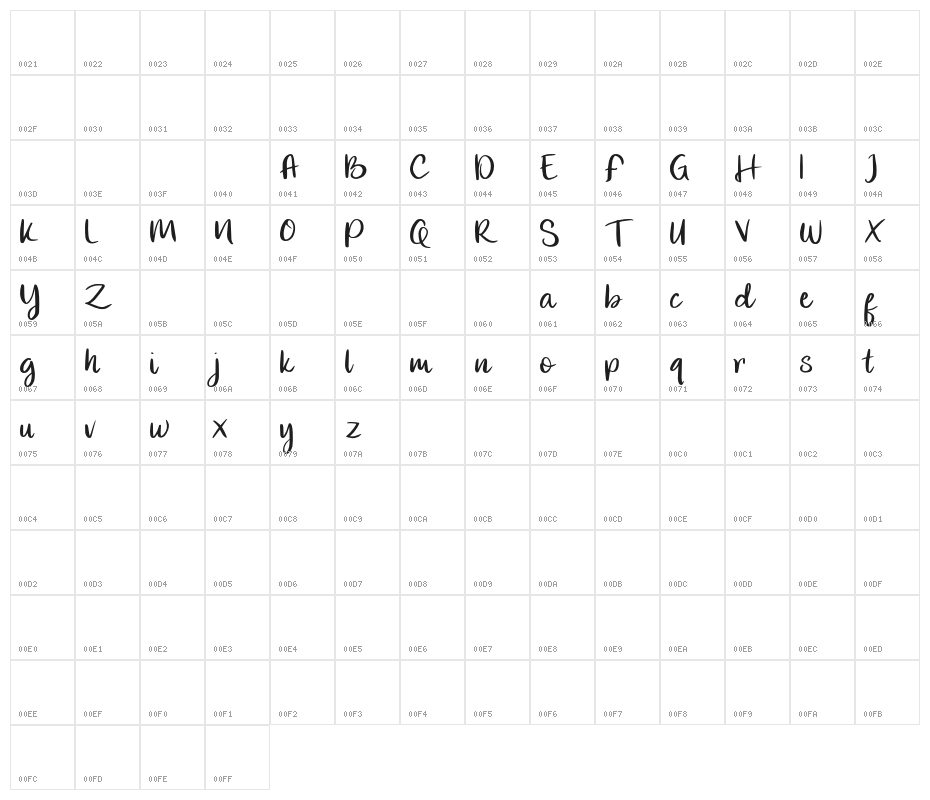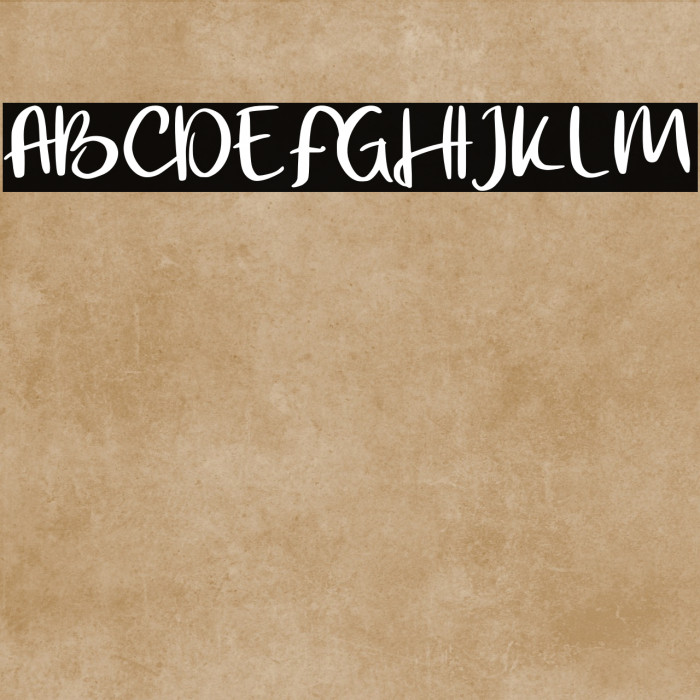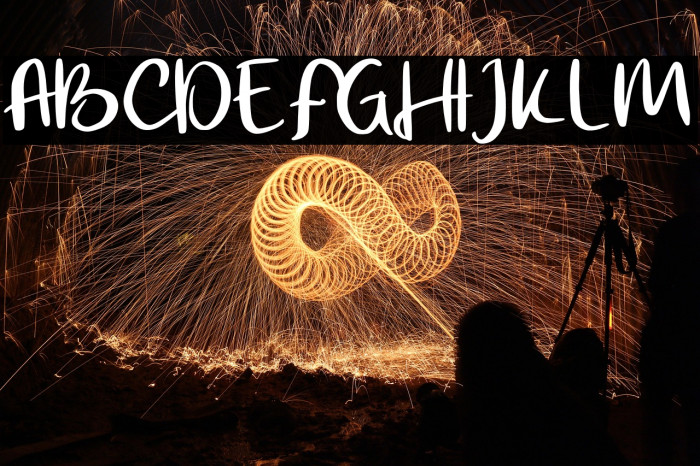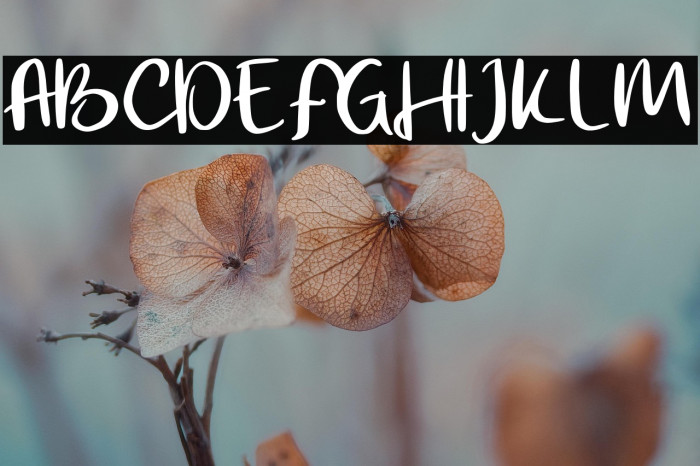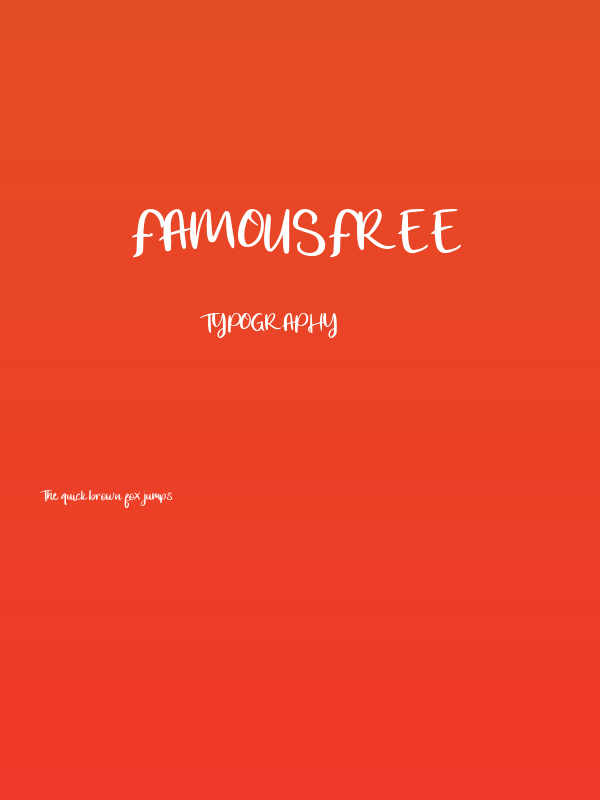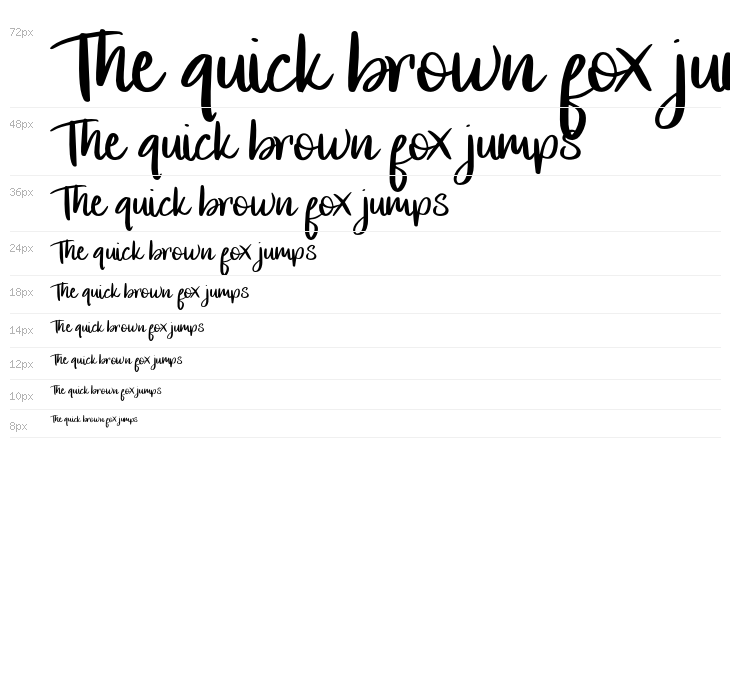
FamousFREE Font
FamousFREE Description
This font features a lively and expressive handwritten style, characterized by its fluid and dynamic strokes. The letters exhibit a playful and casual appearance, with varying thickness that adds a sense of movement and energy. The uppercase and lowercase letters maintain a consistent flow, creating a harmonious and cohesive look. The font's overall design is both approachable and stylish, making it suitable for a variety of creative applications. Its unique charm is enhanced by the slightly irregular shapes, which contribute to its handcrafted feel.
| Overall Style | Casual, Playful |
| Use Case | Logos, Headlines, Creative projects |
| Proposed Projects | Ideal for greeting cards, invitations, personal branding, and creative projects that require a personal touch. |